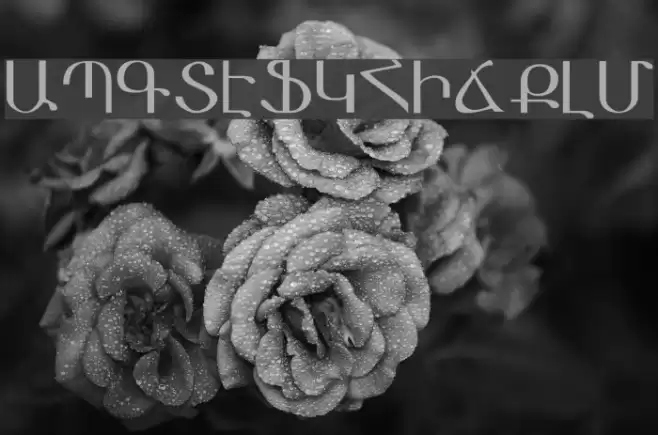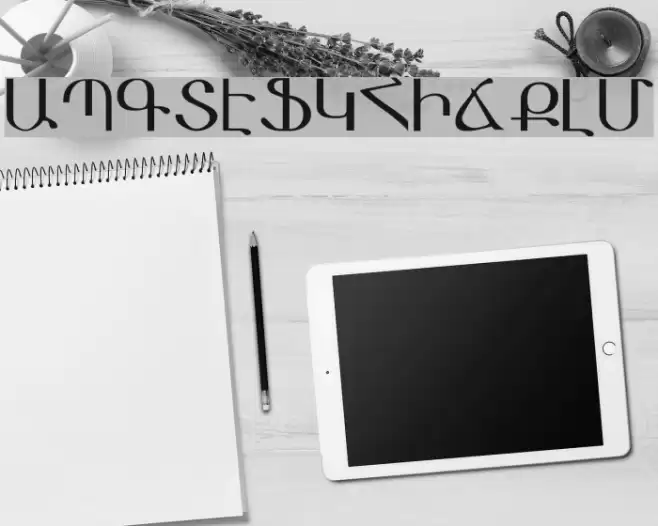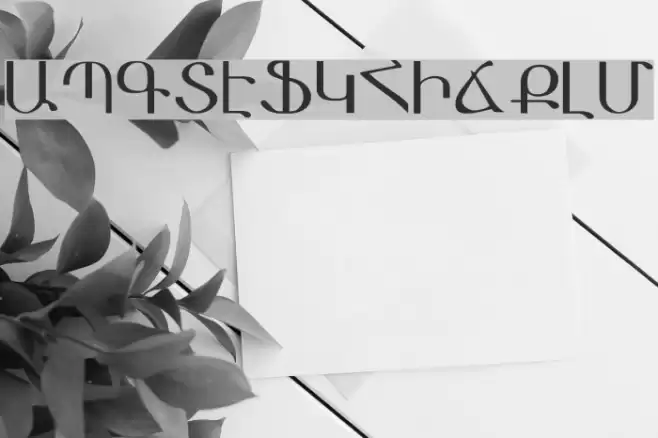
Masis Font
Masis Description
This font features a unique and elegant design with a blend of traditional and modern elements. The characters are crafted with a distinct style that includes sharp angles and smooth curves, creating a harmonious balance. The font exhibits a medium contrast in stroke thickness, giving it a dynamic and sophisticated appearance. The character spacing is normal, allowing for clear readability while maintaining an artistic flair. This font is well-suited for projects that require a touch of elegance and cultural depth, making it ideal for use in decorative and display contexts.
An elegant font with a blend of traditional and modern elements, featuring medium contrast and normal spacing from Uncategorized fonts.
- Proposed Projects: Ideal for cultural projects, artistic displays, branding, and decorative purposes.
- Overall Style: Elegant, Cultural
- Use Case: Decorative, Display